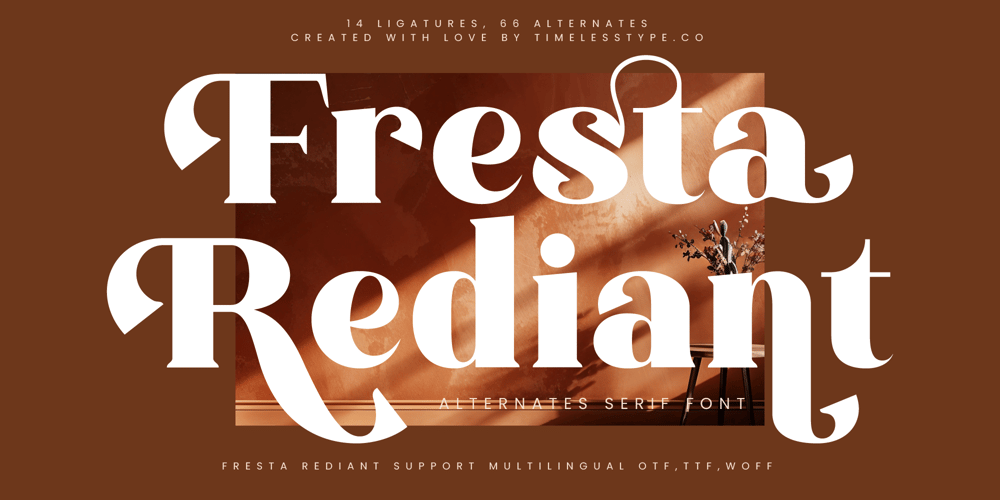
Fresta Rediant
Fresta Rediant font
Fresta Rediant Font Family was designed by Heru Utama Putra and published by Timelesstype Studio. Fresta Rediant contains 2 styles and family package options. Fresta Rediant – Alternates Serif Font , from Timelesstype , Suitable for any projects such as: logos, branding projects, homeware designs, product packaging, mugs, quotes, posters, shopping bags, t-shirts, book covers, name card, invitation cards, greeting cards, label, photography, watermark, special events, and all your other luxury and beautiful projects that need a Luxury Serif taste.